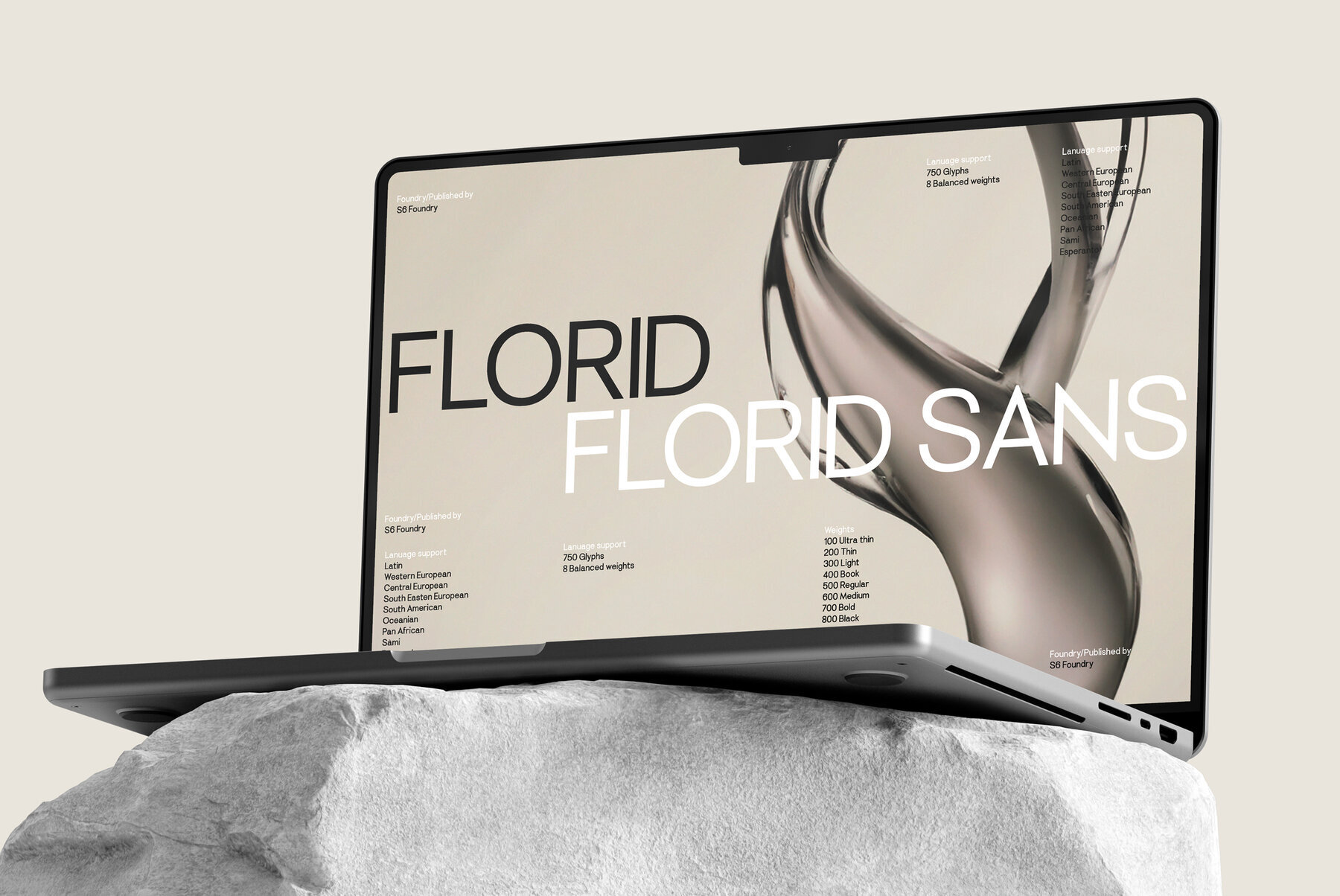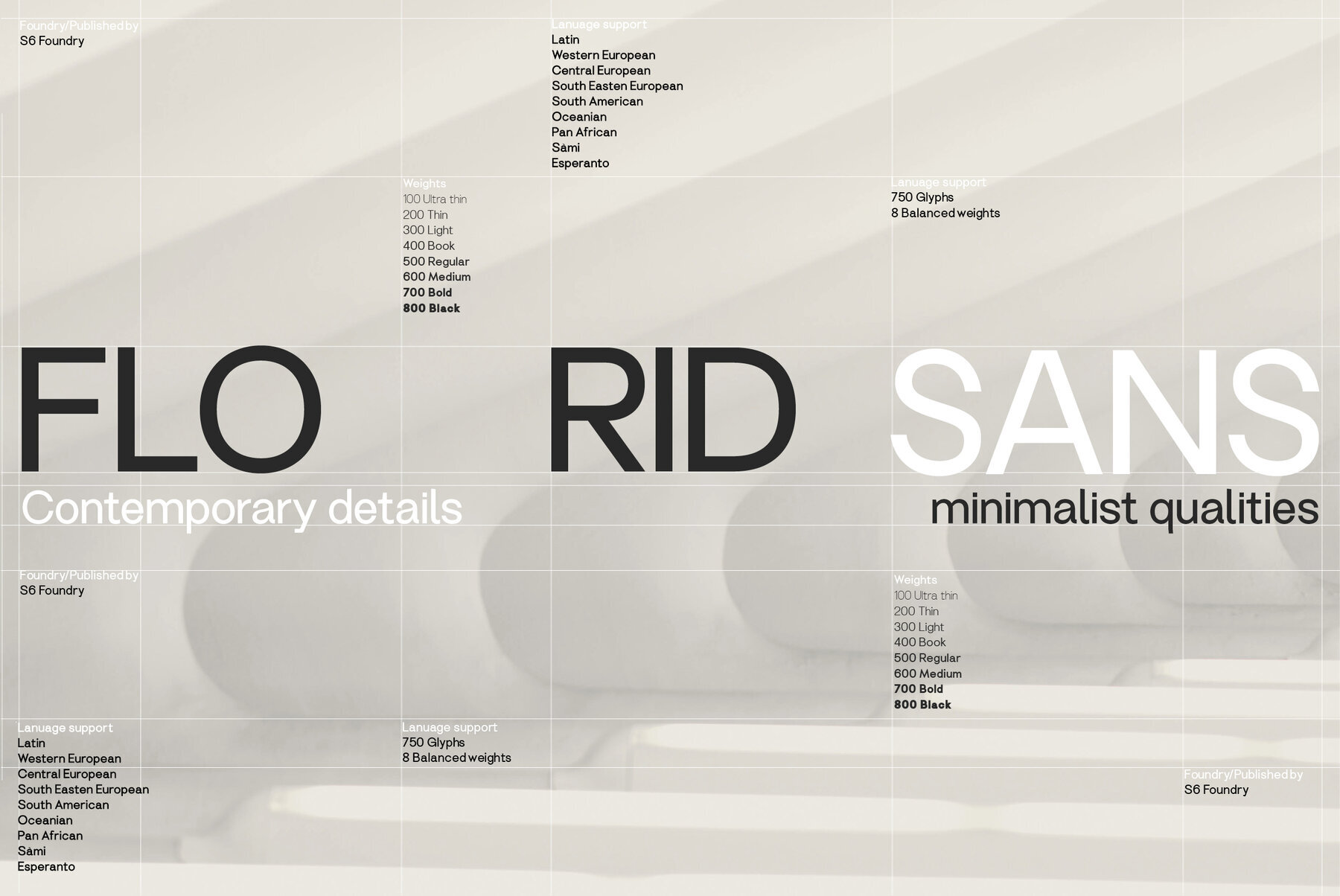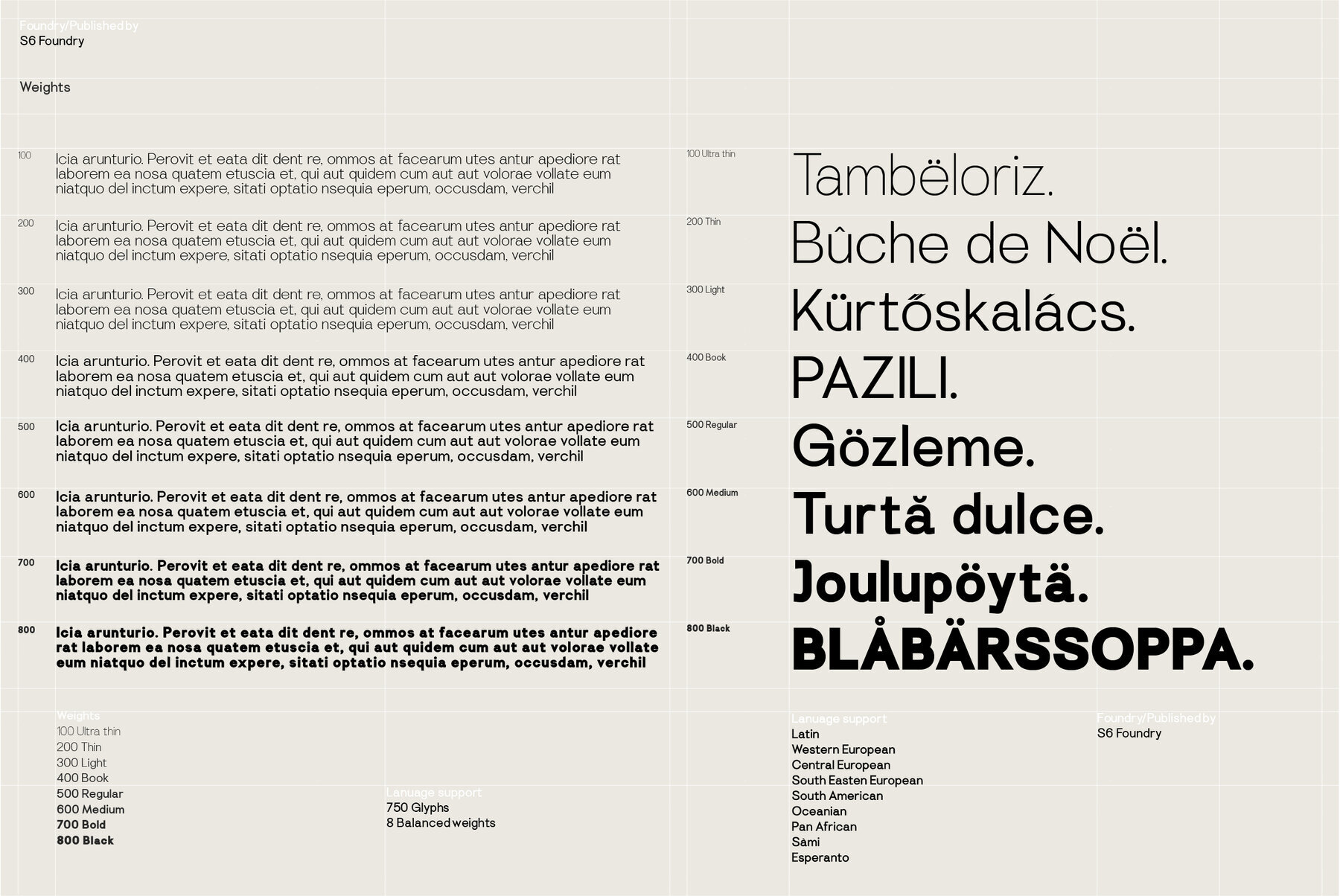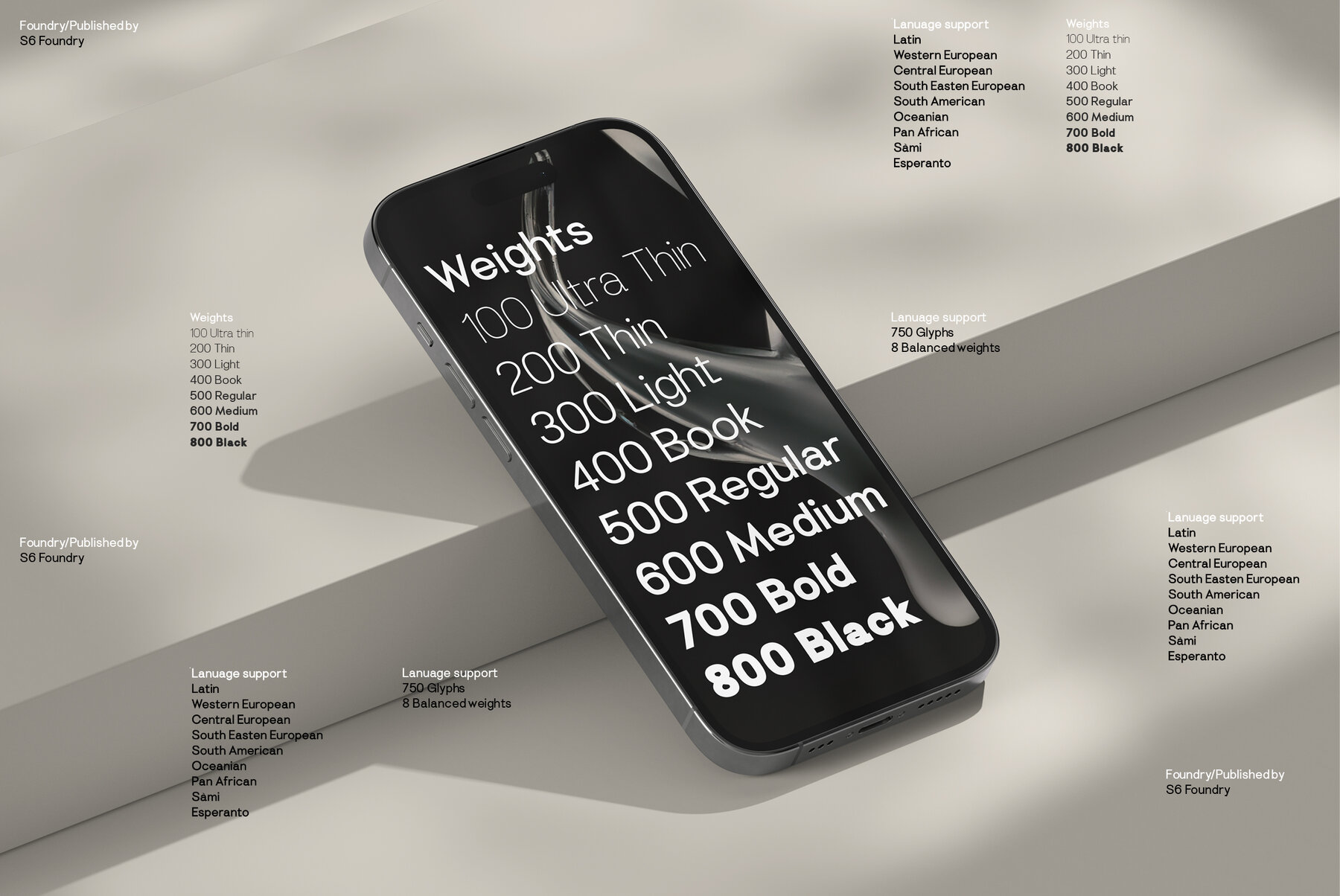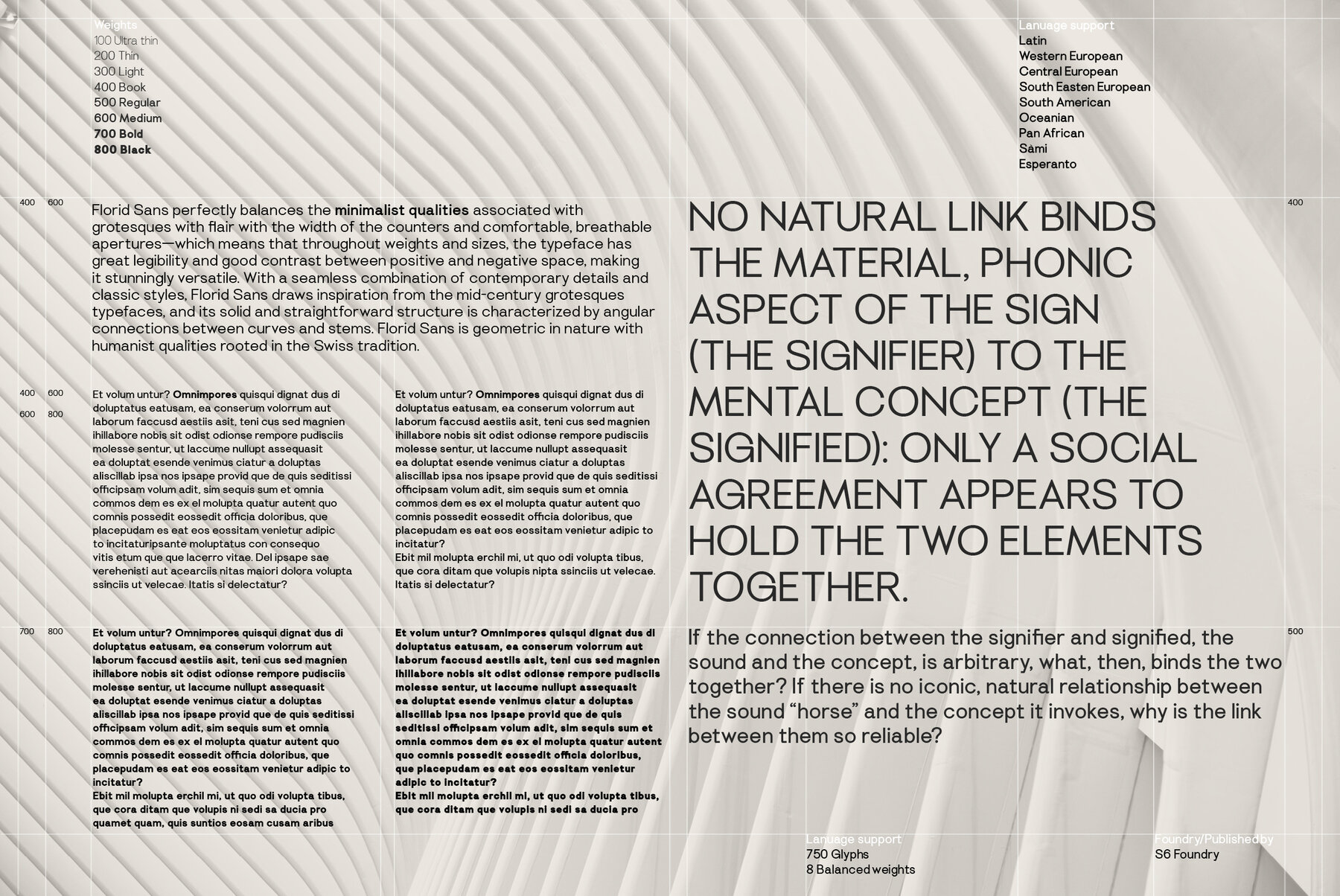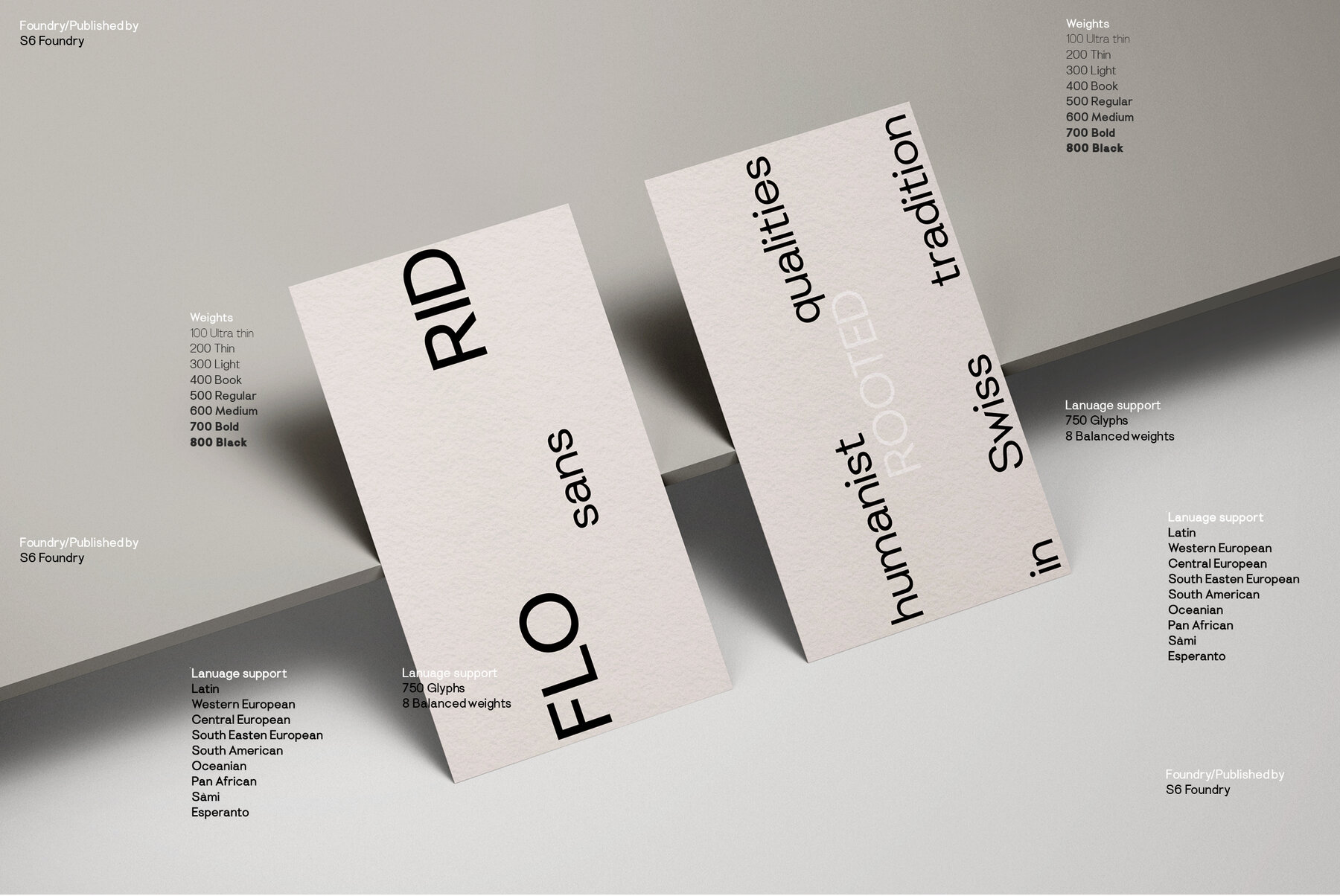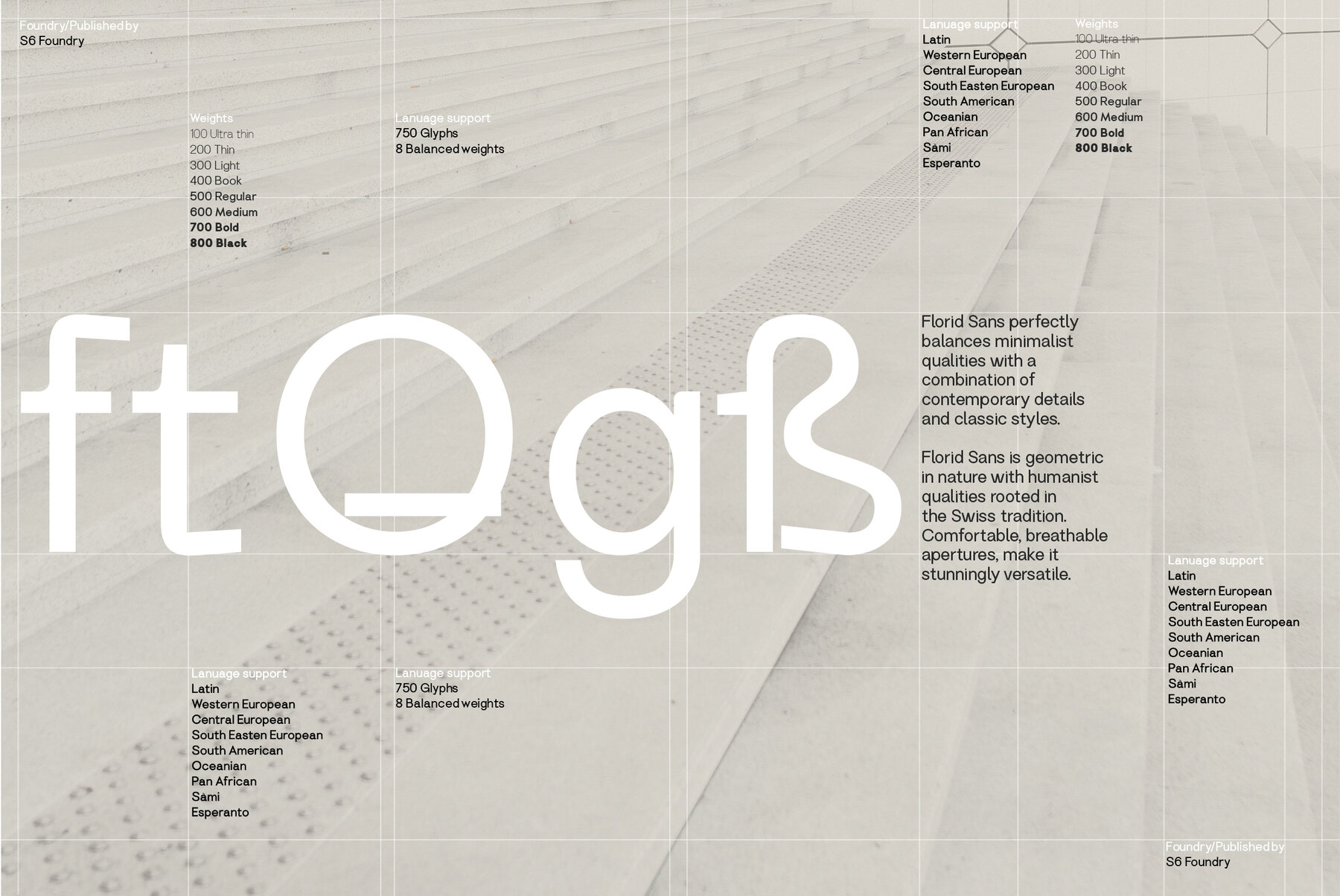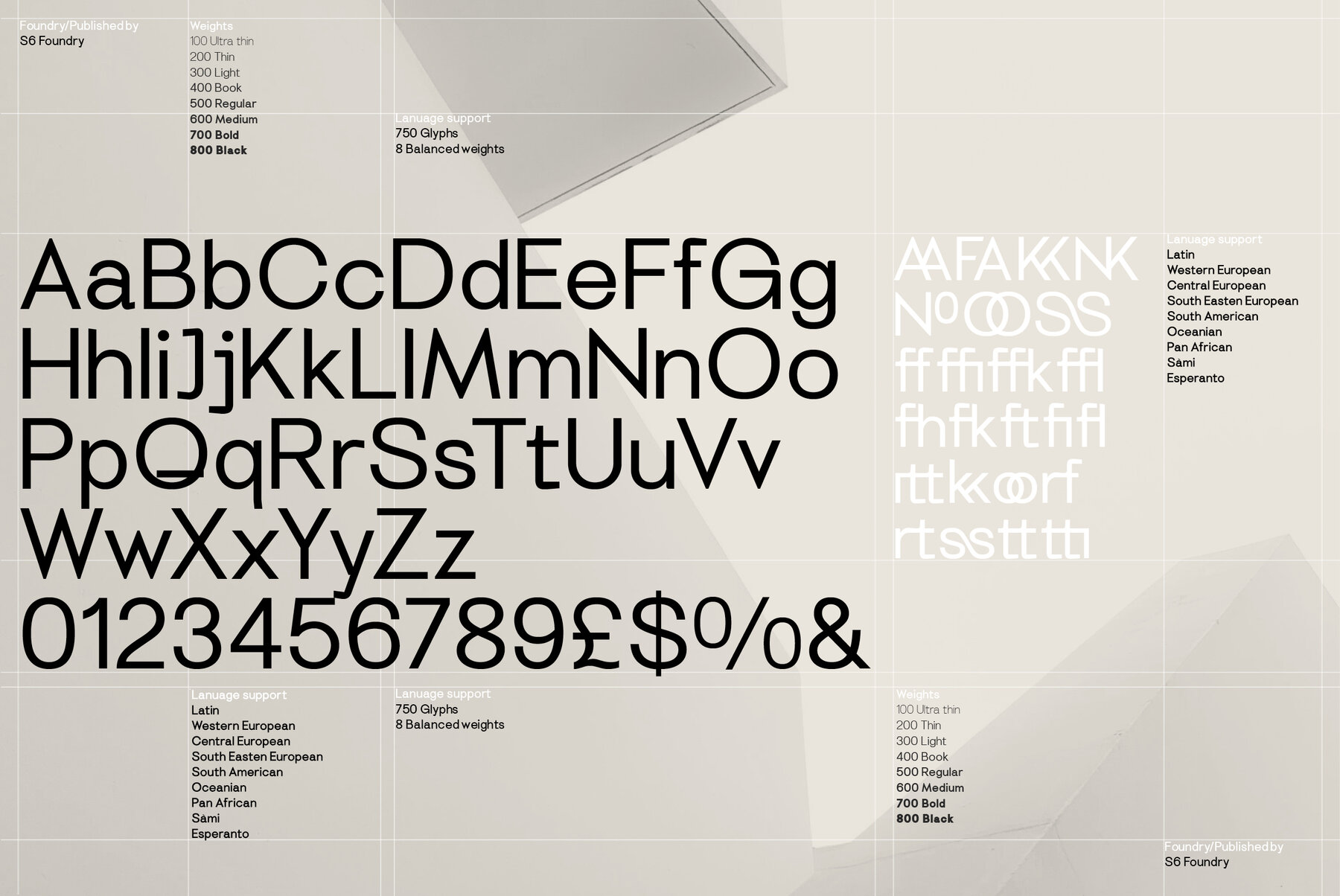
Florid Sans Font
Florid Sans perfectly balances minimalist quality with a combination of contemporary details and classic styles. Florid Sans is geometric in nature with humanist quality rooted in the Swiss tradition. Comfortable, breathable apertures make it stunningly versatile.